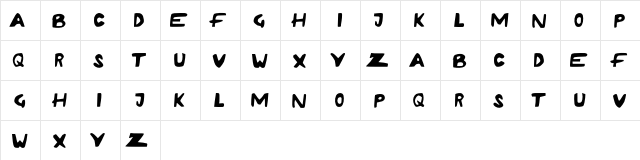
RUSHDA Funky
| Style | Funky |
| Designer | Dr. Usama |
Design Context for RUSHDA Typeface
RUSHDA trades formality for fun, with bouncy, characterful letterforms that bring warmth and energy to any project.
Great for children's books, toy packaging, family event branding, and casual consumer-facing design.
Font Pairing: Pairs well with a rounded or humanist sans for body copy, maintaining the friendly tone without relying on RUSHDA to carry extended reading.
Pro Tip: Avoid using RUSHDA for long passages of text — it works best for headlines, labels, and short calls to action.